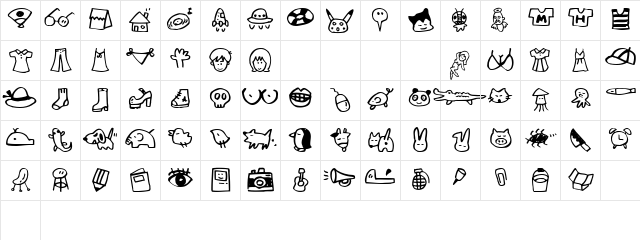
HolidayAi Regular
Design Context for HolidayAi Typeface
HolidayAi is a composed and adaptable typeface that performs quietly and consistently across a wide range of design contexts.